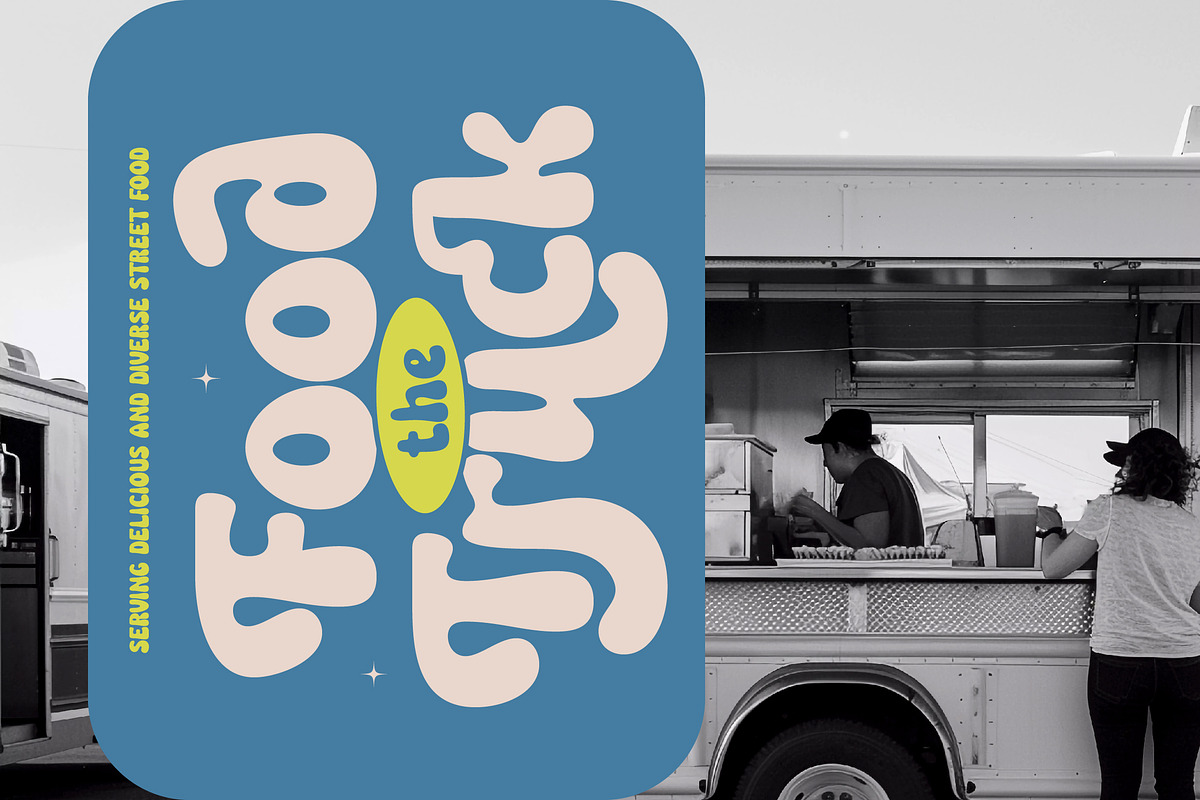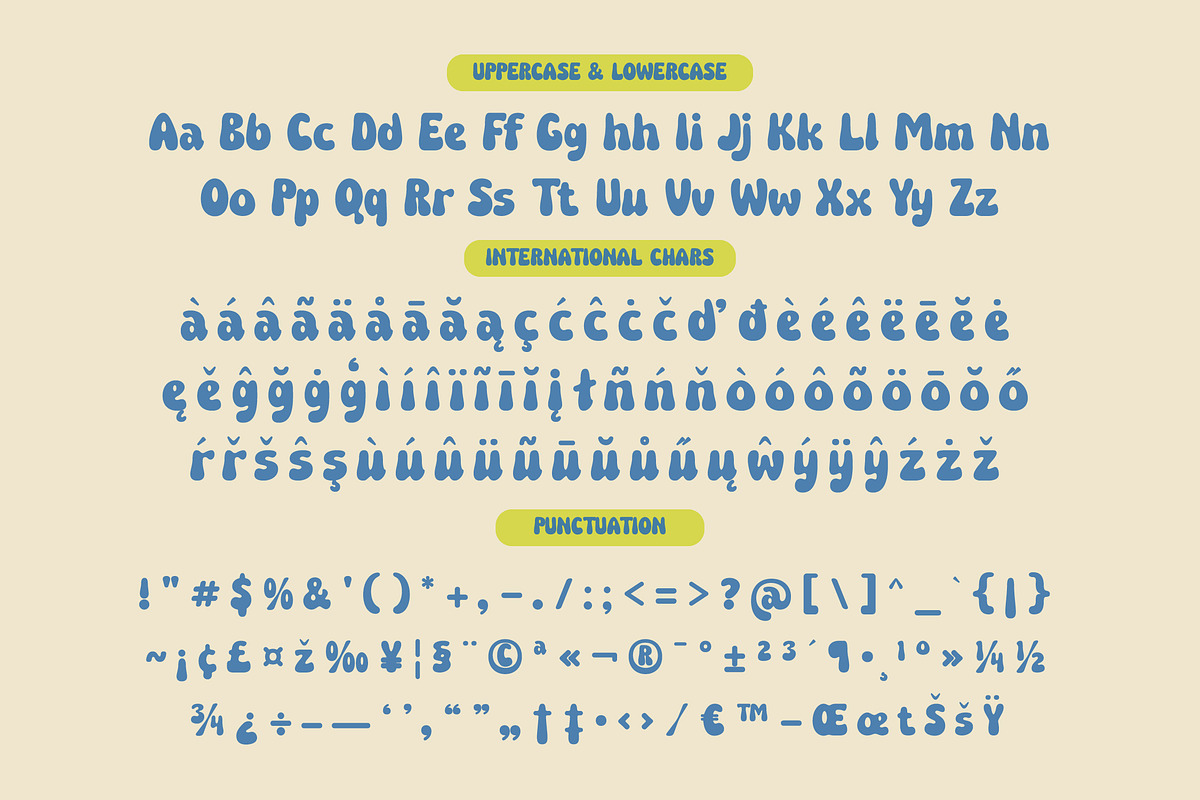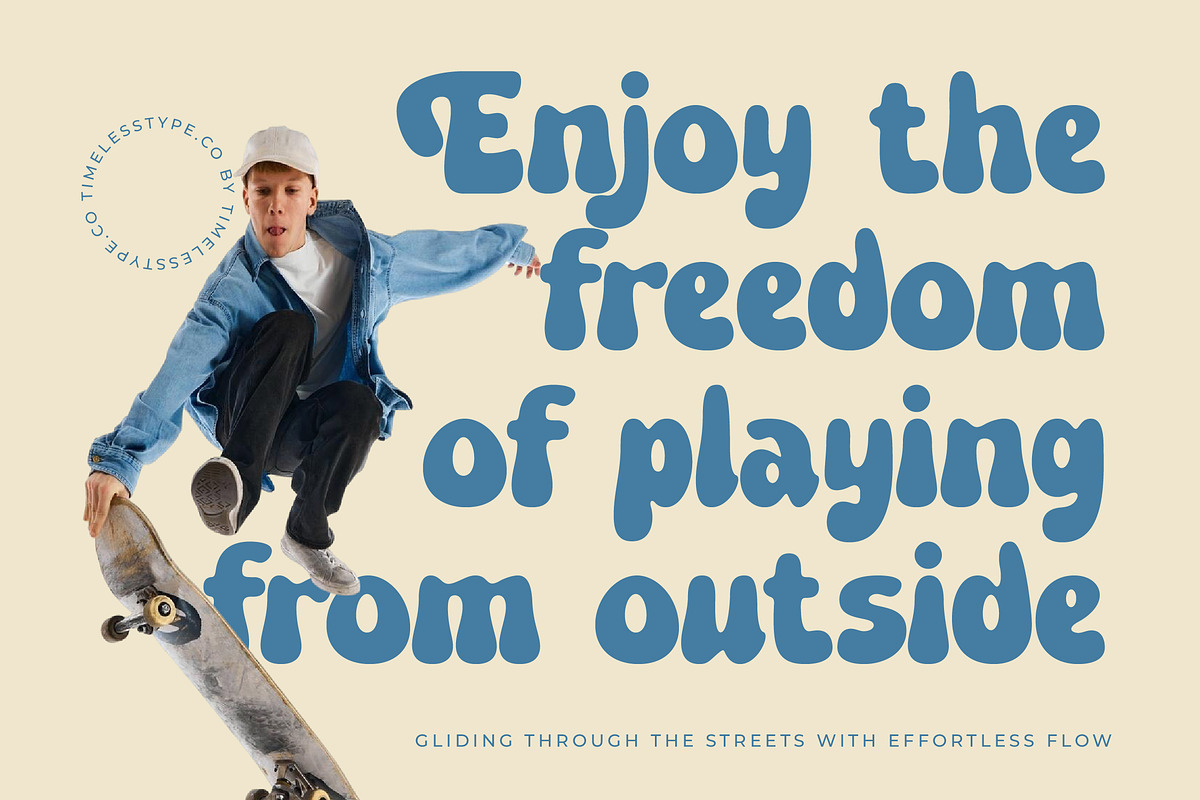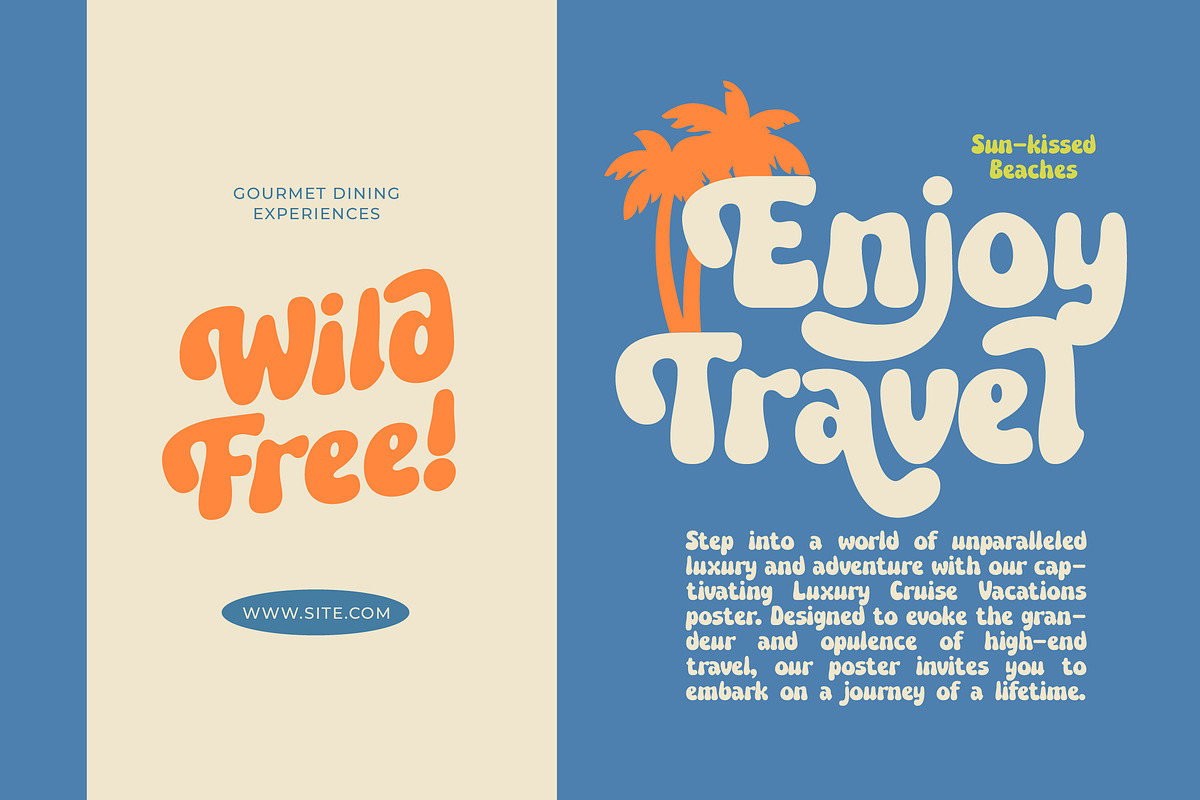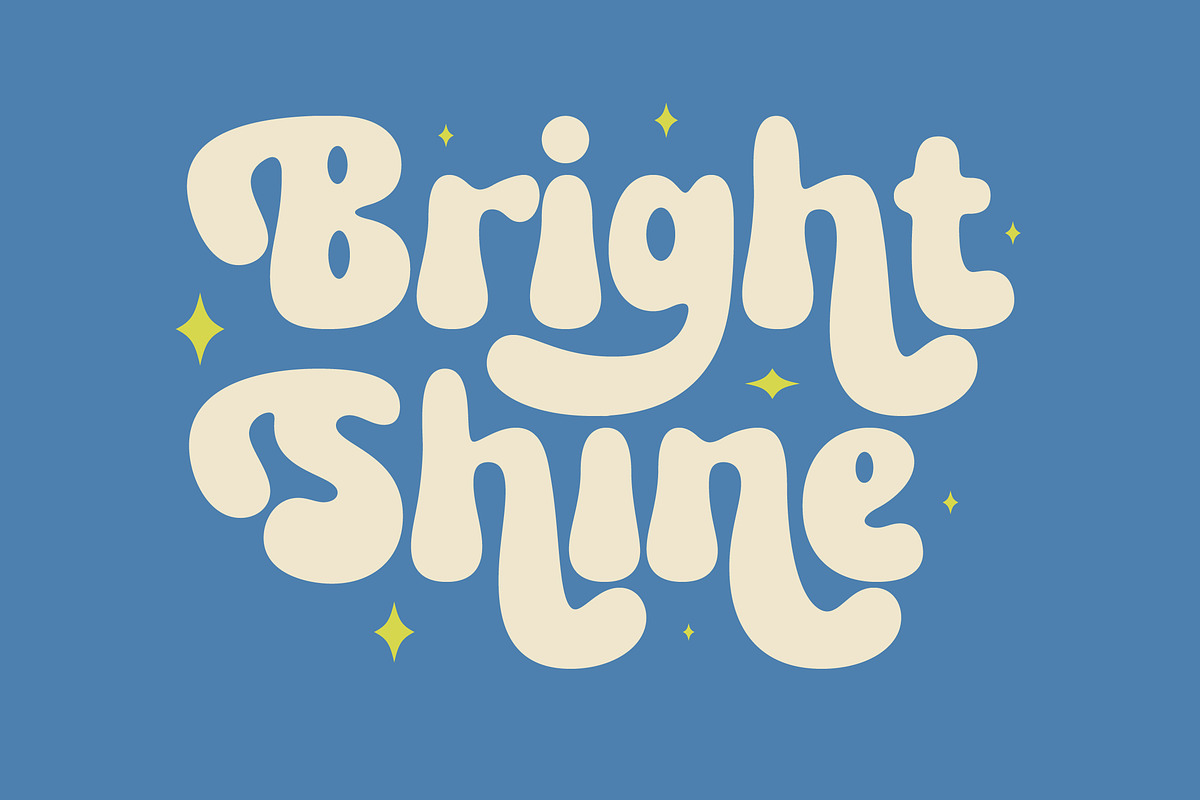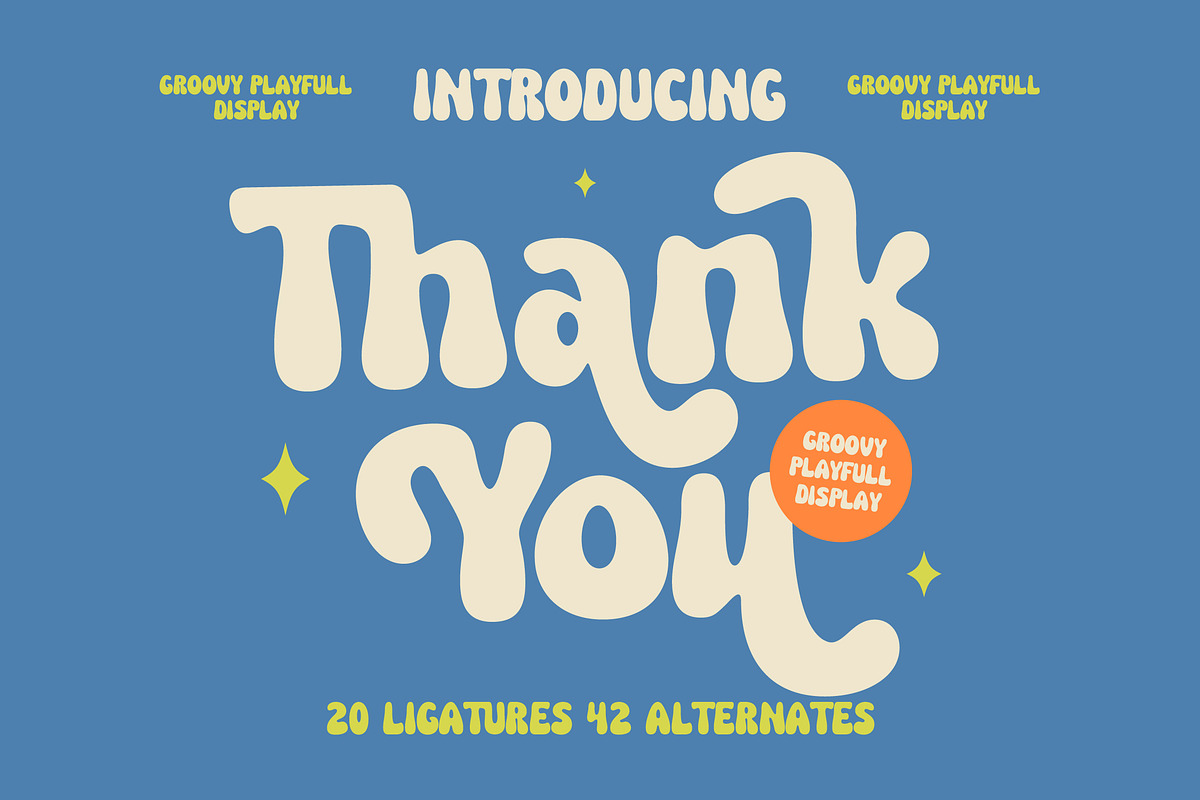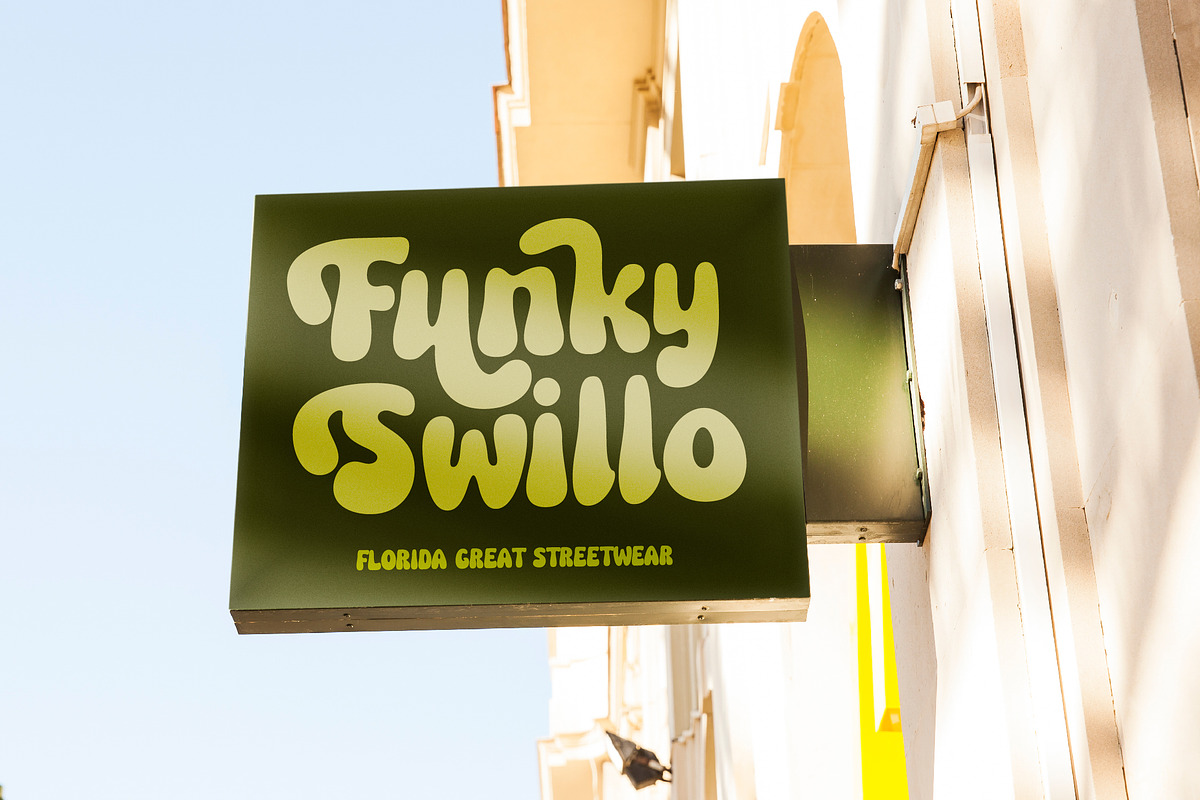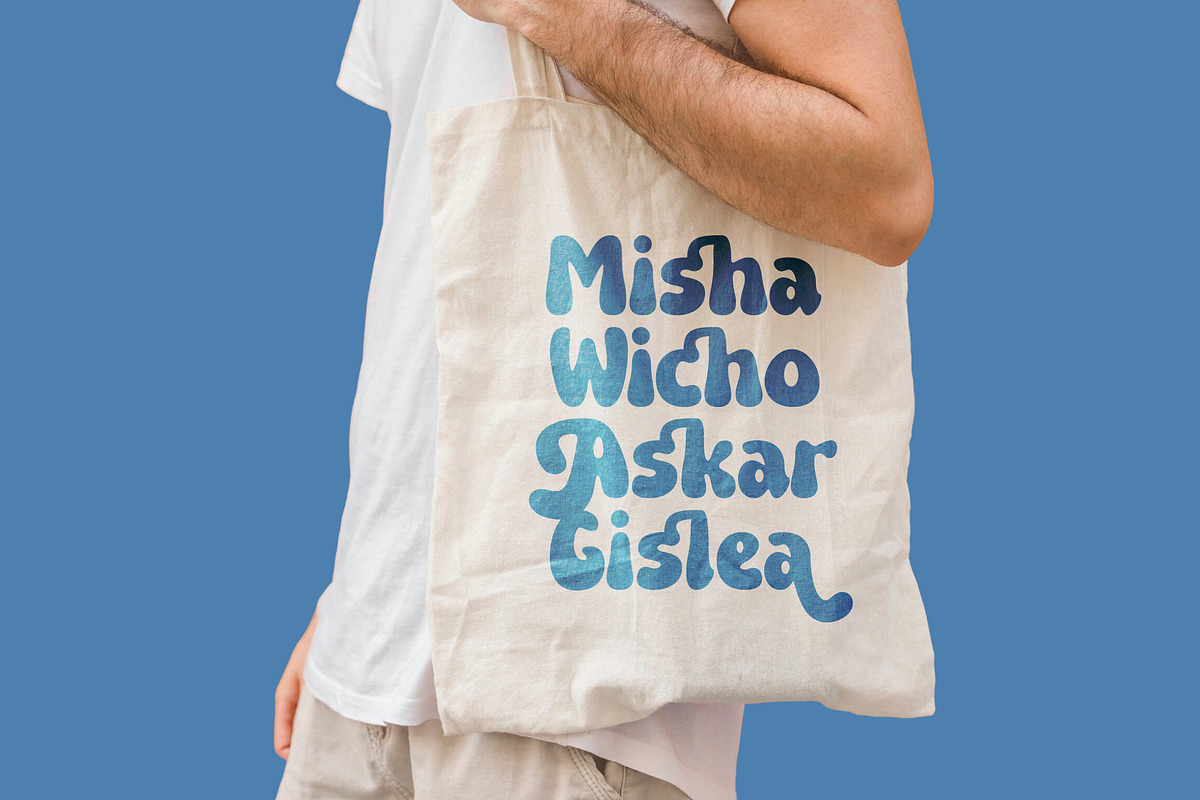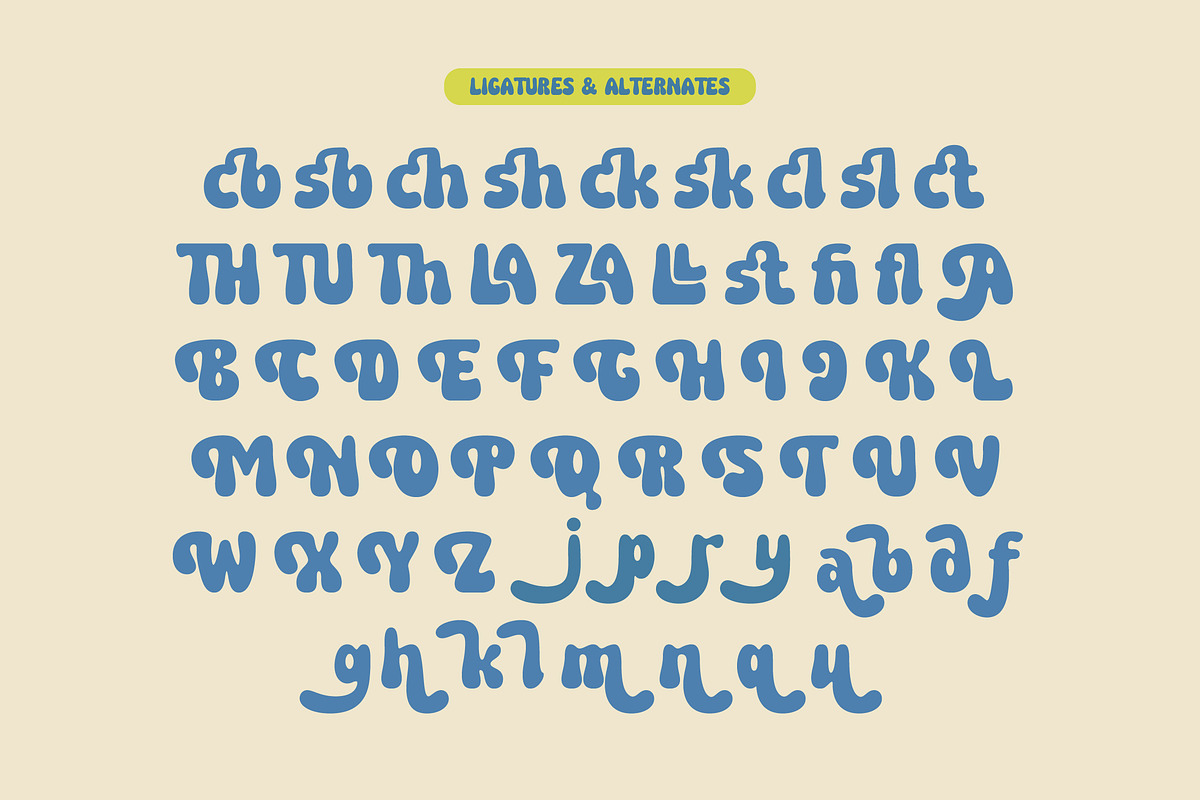
Queen Wosha Groovy Display Font
Step into a world of vibrant energy and whimsical charm with Queen Wosha, a typeface designed to command attention while maintaining a lighthearted spirit. This font is more than just a set of characters; it is a celebration of organic curves and bold personality that brings life to every word.
Inspired by the rhythmic soul of the 1970s and the fluid movements of classic psychedelic art, this typeface captures a nostalgic essence that feels entirely refreshed for the modern era. Its design reflects a period of bold experimentation and hand-crafted aesthetics, making it a perfect bridge between vintage heritage and contemporary digital design.
As a modern serif display solution, it offers an unparalleled branding impact that allows your message to stand out in a crowded marketplace. This editorial font provides the sophistication expected from luxury typography while its bouncy nature ensures it remains accessible and fun, proving that a high-contrast serif can be both professional and incredibly spirited.
Perfectly aligned with the current modern serif trend, this typeface stands out among other editorial display fonts by offering a truly character-driven typography experience. It meets the growing demand for designs that feel authentic and human-centric, moving away from rigid geometry toward something more emotive and expressive.
Whether you are crafting a standout logo design or building a complete branding identity, this font adapts effortlessly to your creative vision. It is the ideal choice for high-impact editorial layouts, creative packaging, whimsical wedding stationery, and avant-garde fashion marketing where making a statement is essential.
This font is feature-rich, providing over 20 custom ligatures and 42 stylistic alternates to give you total control over your composition. It also includes comprehensive multilingual support and a vast range of international characters, ensuring your message reaches a global audience while maintaining its beautiful swashes and unique visual rhythm.
- Ligature 20 Alternate 42